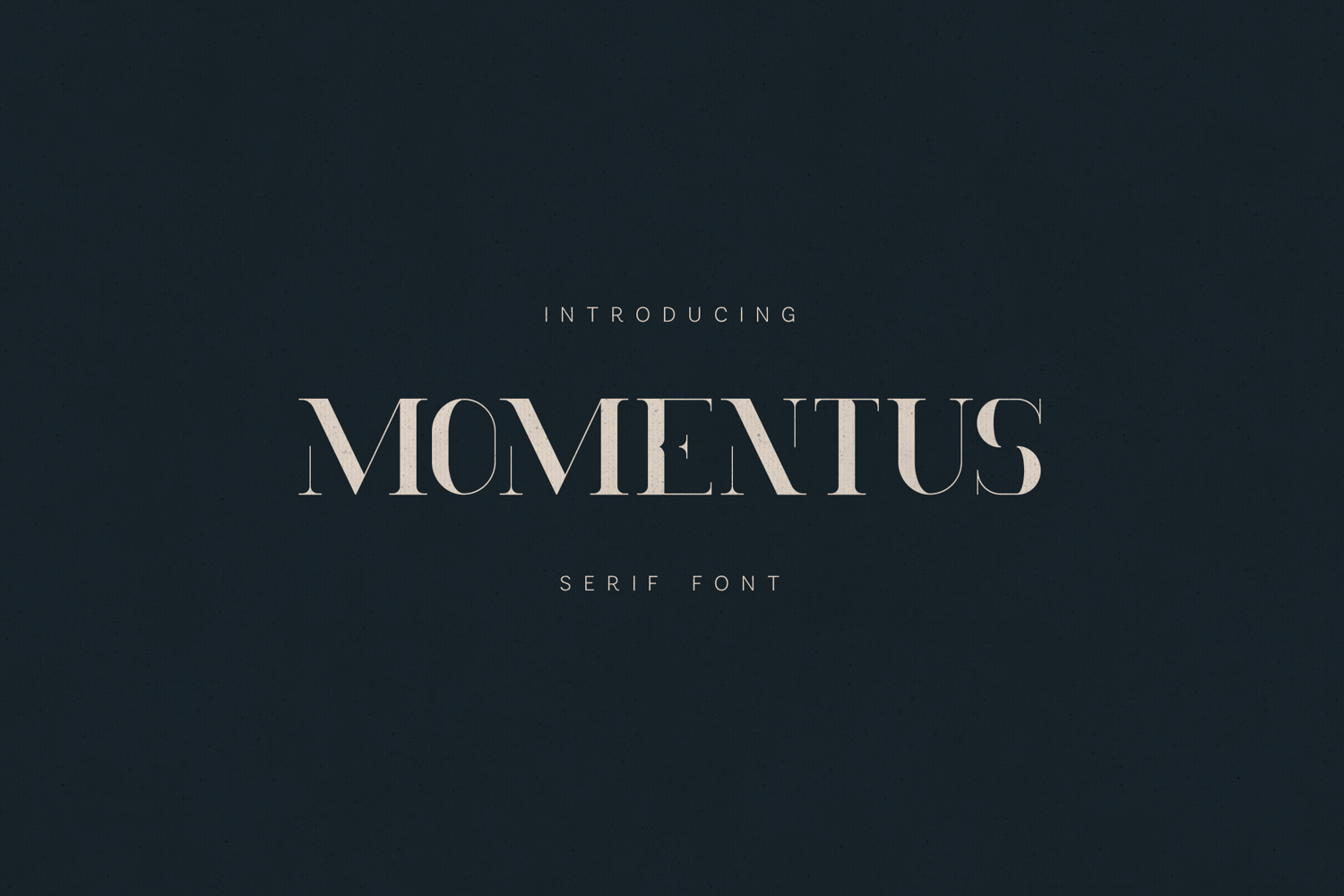
Momentus Modern Editorial Serif Font
Momentus is a modern editorial serif typeface built to capture presence, tension, and visual impact. Designed with high contrast strokes and refined proportions, it delivers a bold yet sophisticated typographic voice.
The letterforms explore controlled distortion and structural elegance, creating a balance between classic serif foundations and contemporary expression. Each character feels intentional, giving the typeface a strong identity suited for statement-driven design.
Momentus is crafted for creatives who want typography to lead — not follow.
This typeface is ideal for:
• editorial layouts
• fashion branding
• luxury identity systems
• magazine headlines
• typography posters
• premium packaging
• art direction projects
• visual storytelling
The font includes uppercase, lowercase, numerals, punctuation, and multilingual support, making it versatile for global use.
With its confident structure and refined contrast, Momentus turns type into a visual statement.